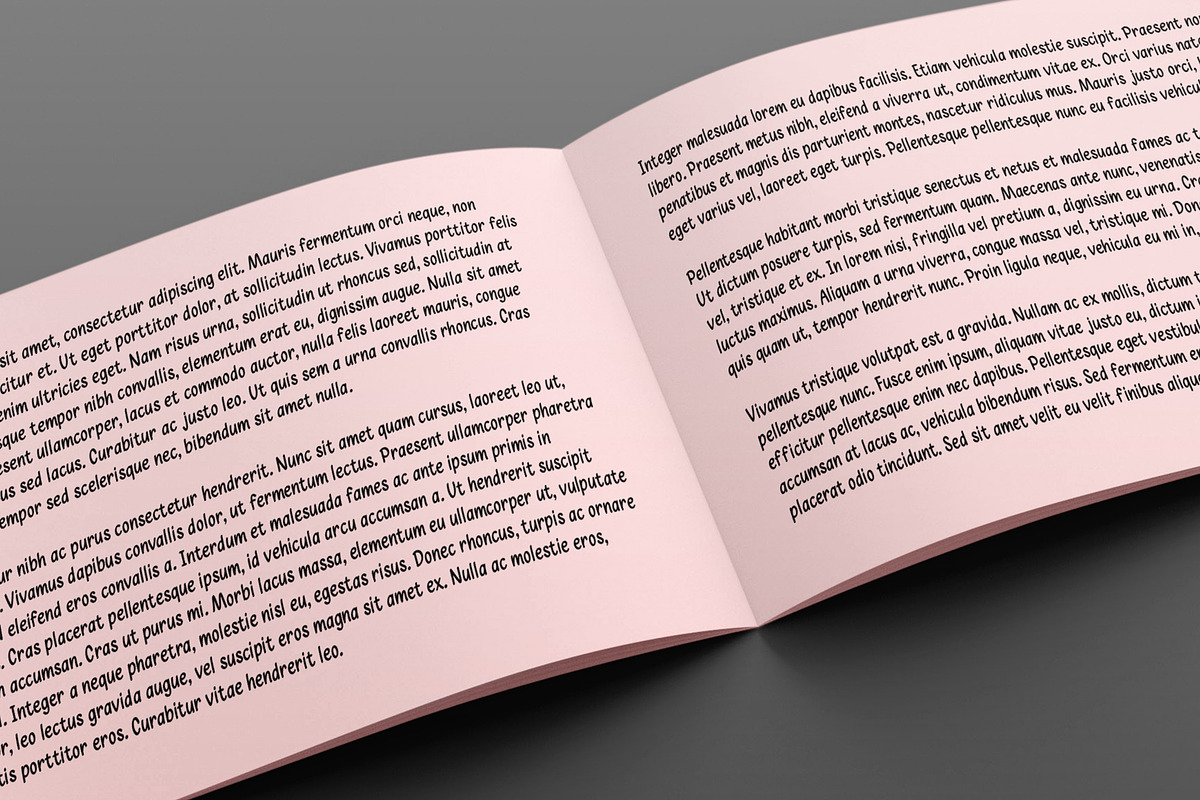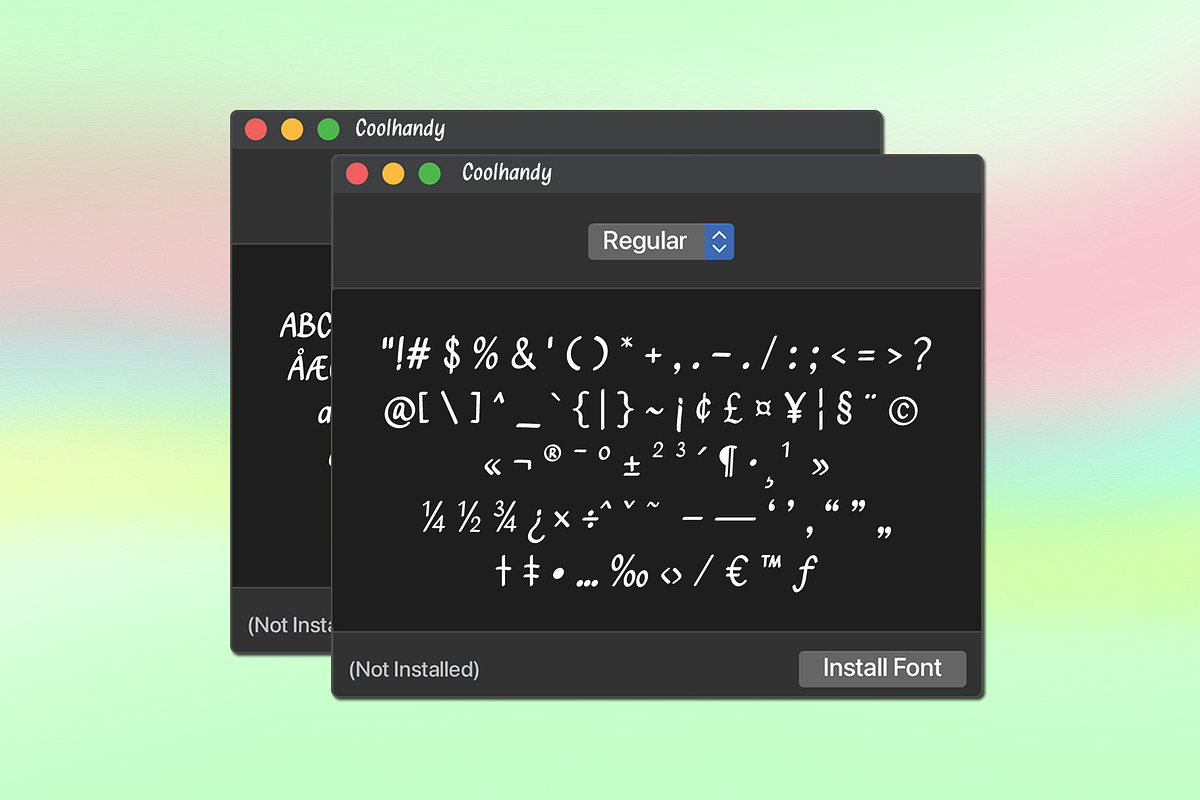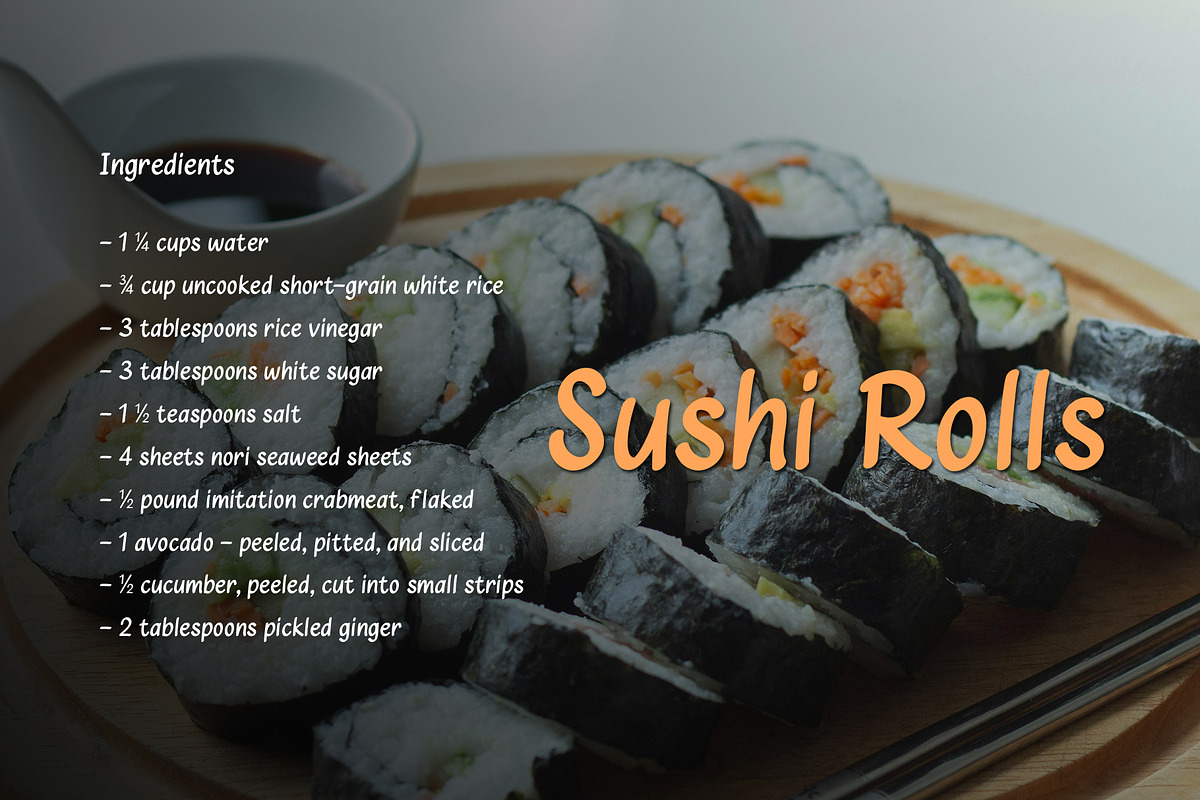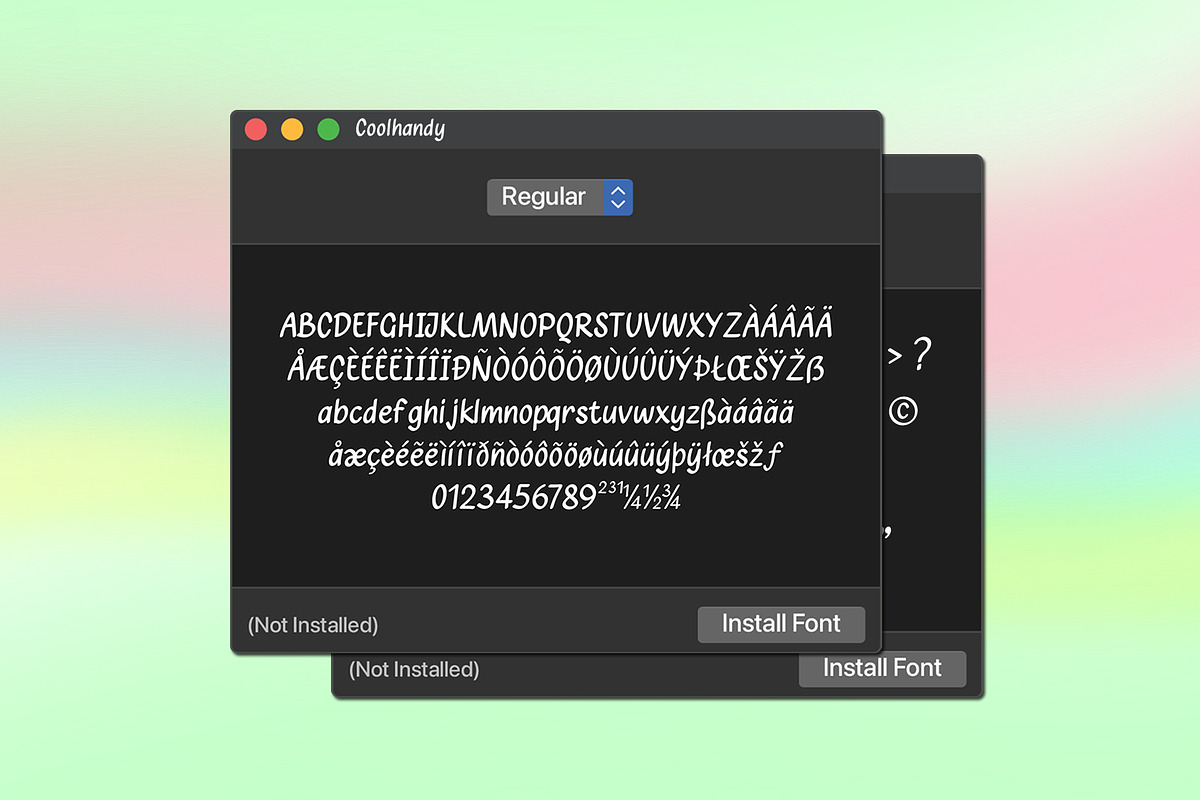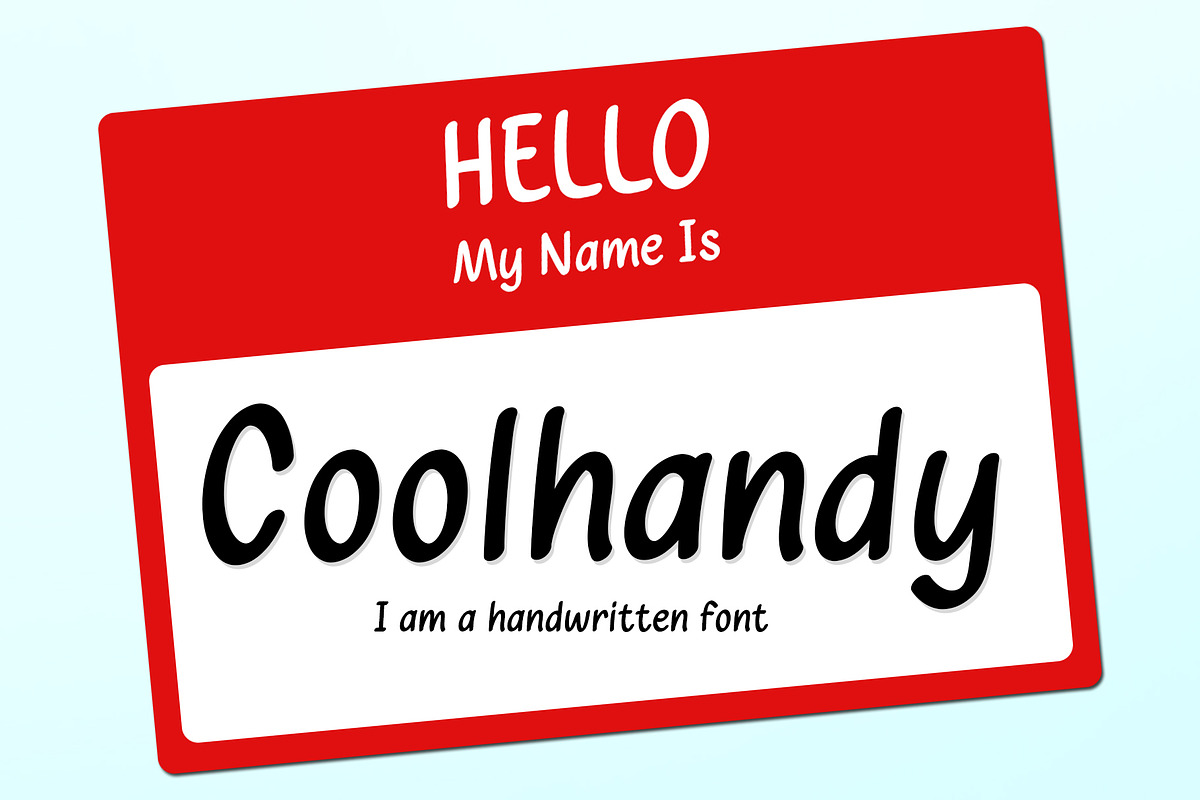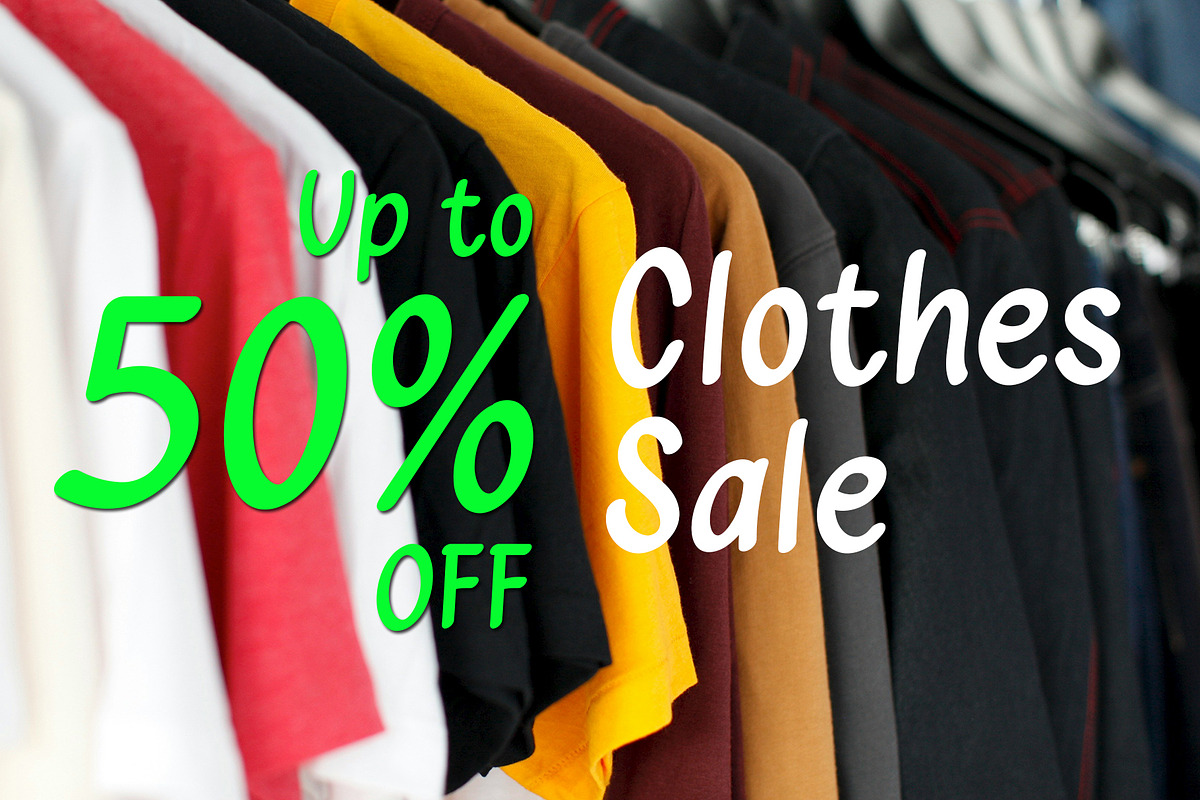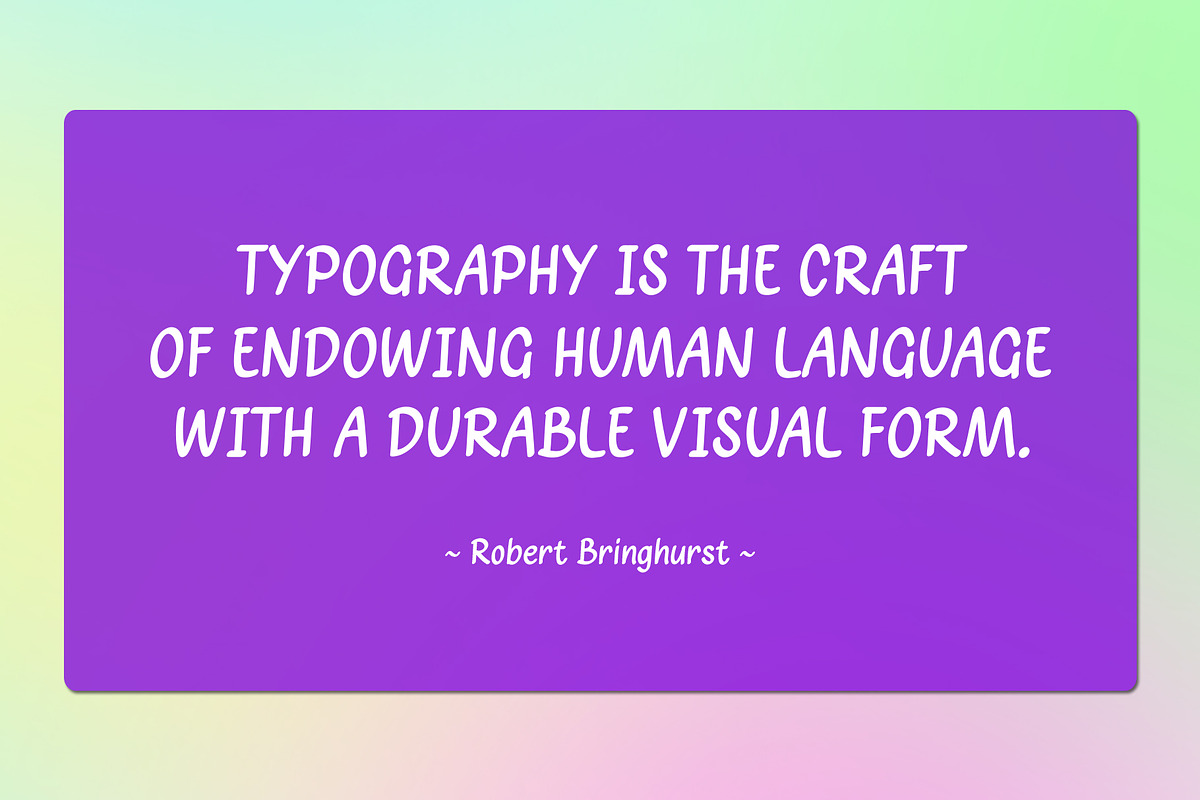
Coolhandy - simple cool handwritten
Coolhandy - A simple, clean and cool handwritten font for all designs that require a natural and simple hand touch. This font carries capital letters, lowercase letters and standard punctuation with multilingual support.